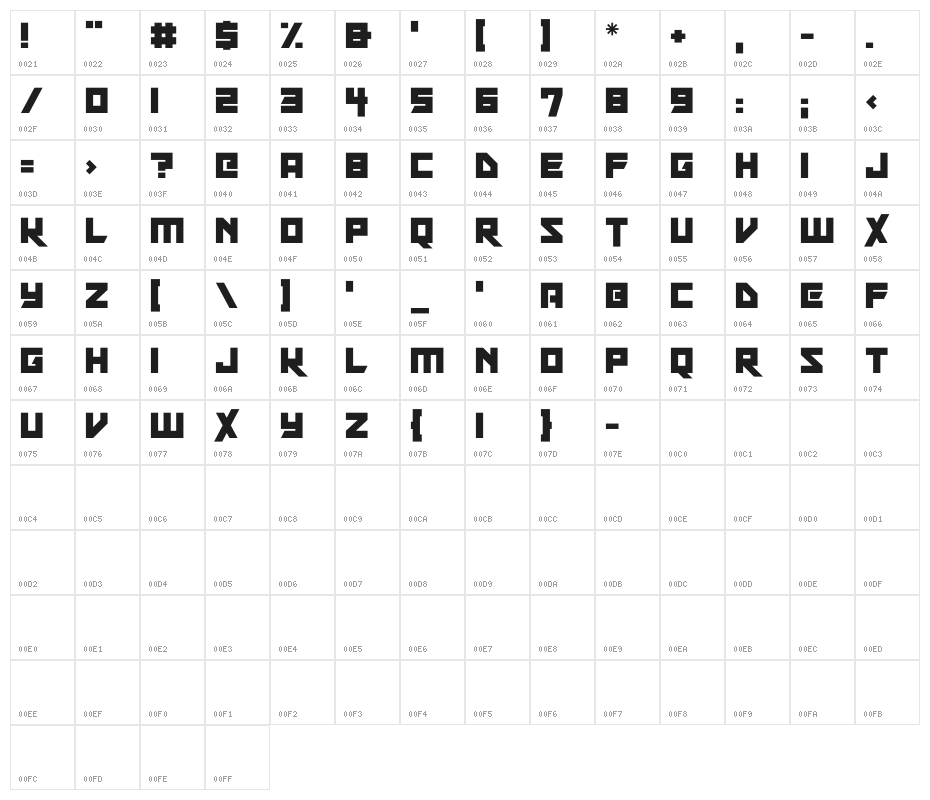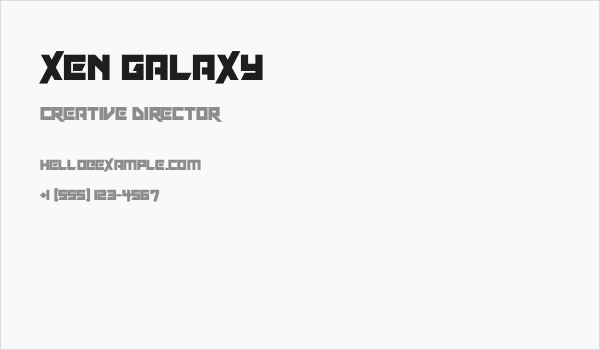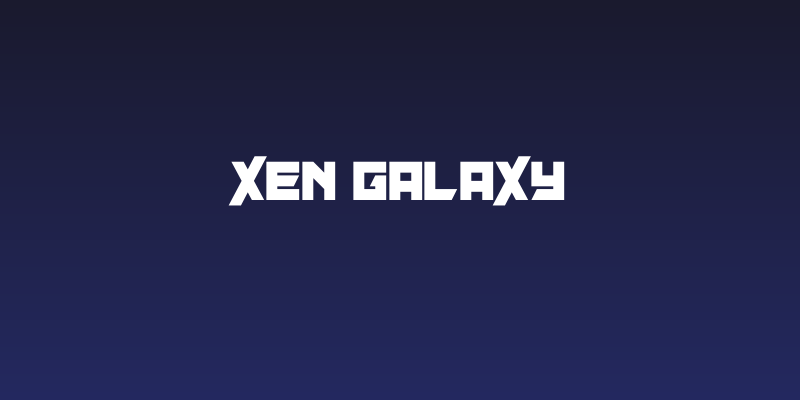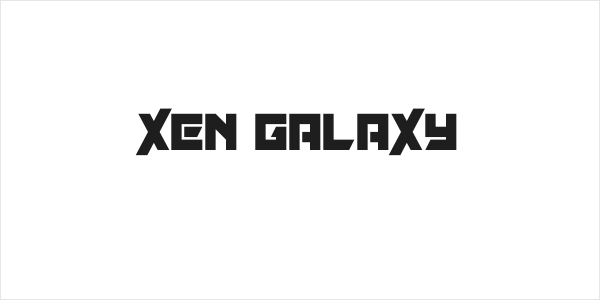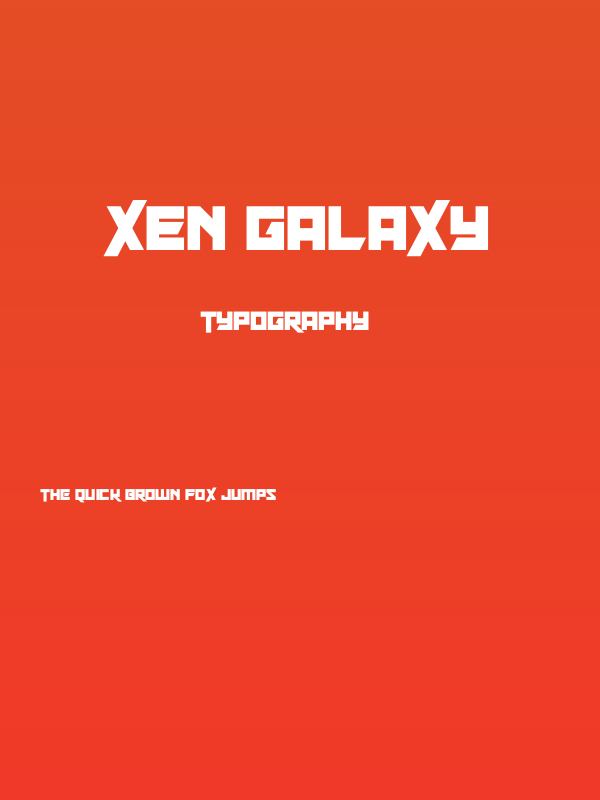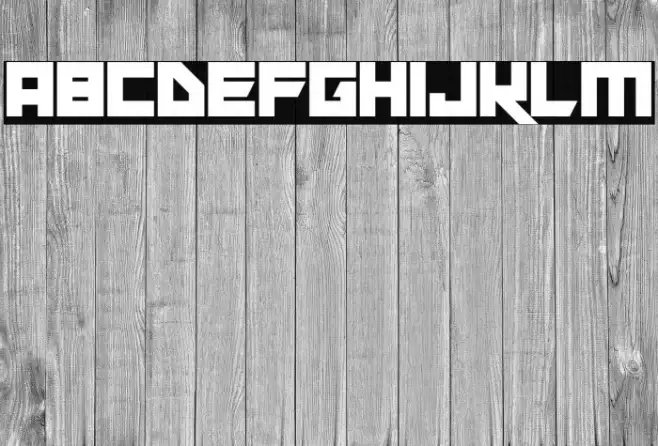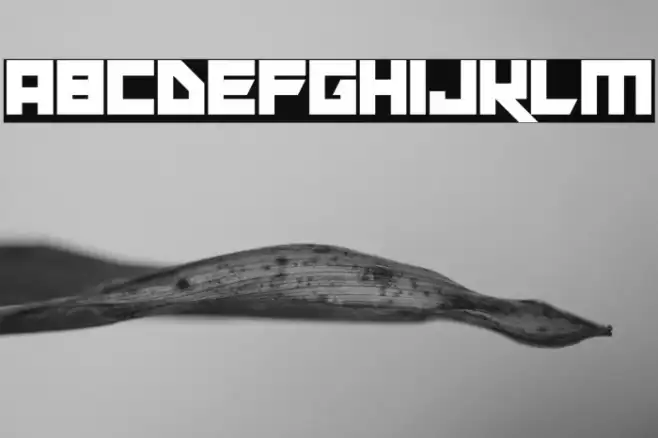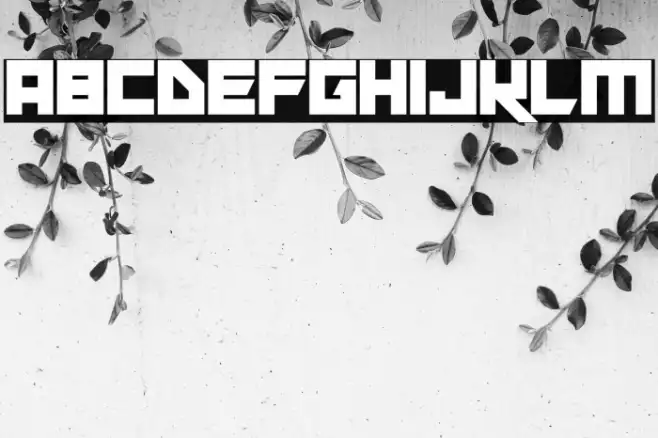
Xen Galaxy Font
Xen Galaxy Description
This font features a bold, futuristic design with sharp angles and geometric shapes. The characters are constructed with a blocky, angular style that gives a sense of modernity and technological advancement. The uppercase letters are particularly striking, with unique cuts and angles that create a dynamic visual impact. The numbers and special characters maintain this aesthetic, ensuring consistency across all glyphs. This font is ideal for projects that require a strong, modern look, such as tech branding, video game titles, or sci-fi themed designs.
| Proposed Projects | Tech branding, video game titles, sci-fi themed designs, futuristic posters. |